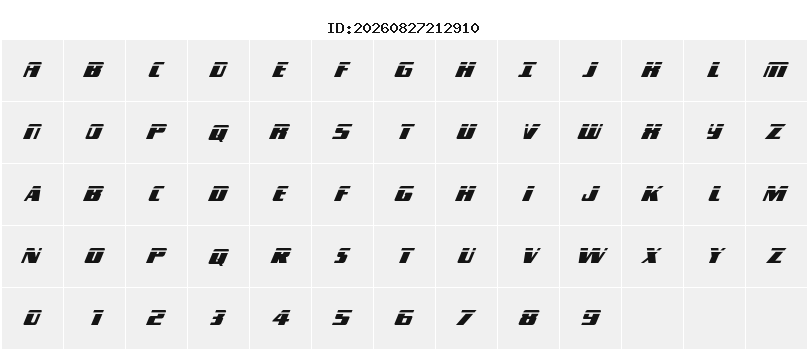
Typhoon Laser Italic Preview
• Font Name: Typhoon Laser Italic
About Typhoon Laser Italic.ttf
Typhoon Laser Italic.ttf is a modern, elegant sans-serif font designed for ultimate readability and visual harmony. Perfect for branding, headlines, web design, and print materials.